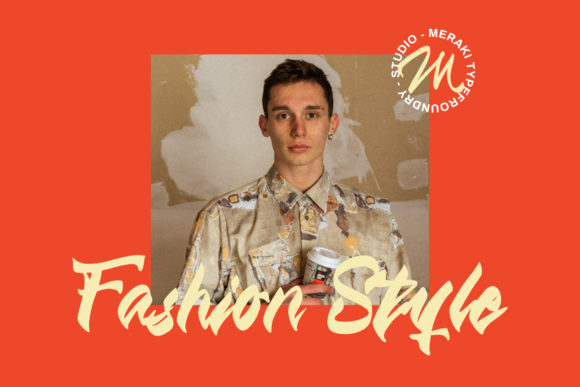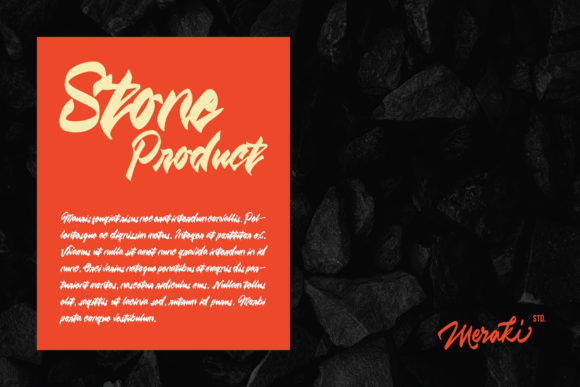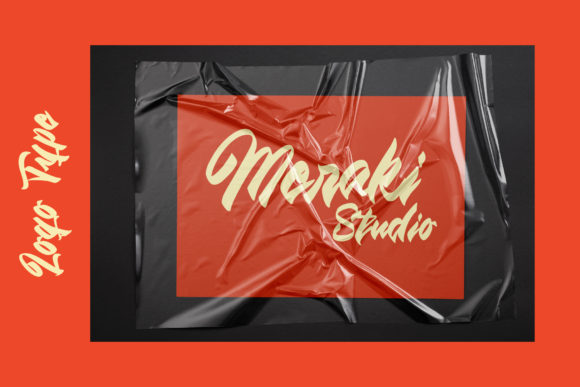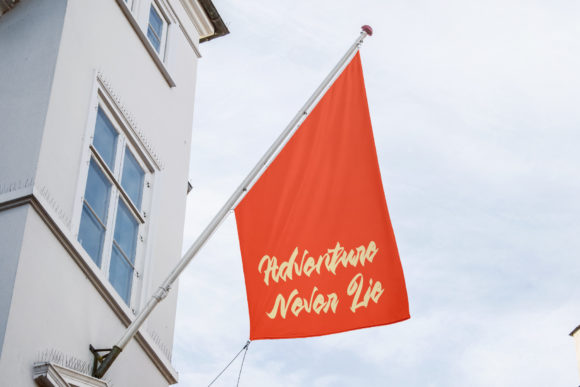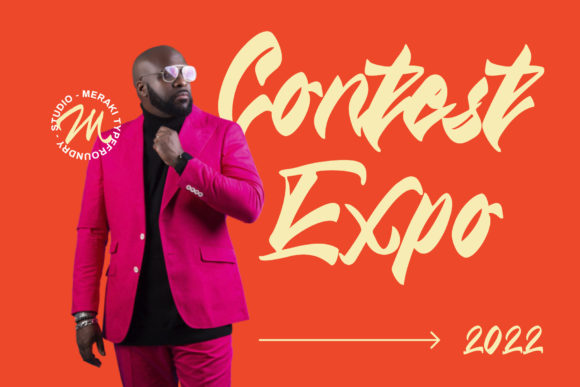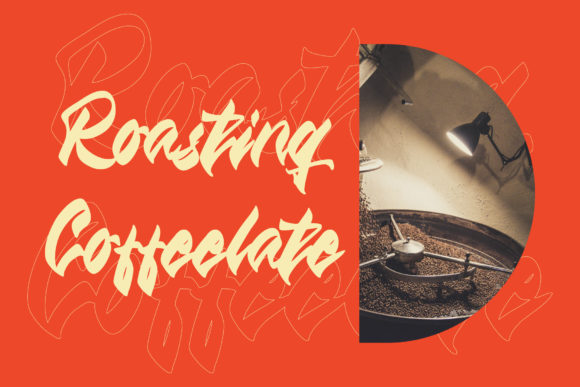
Discover the Charm of Callista Font: Elevate Your Designs with its Unique Handwritten Style
Are you a designer, crafter, or digital artist looking for a font that can add a personal touch to your creations? Look no further than the Callista Font! This unique handwritten font is perfect for a wide range of projects, from crafting and digital designing to presentations and greeting card making. With its incredibly versatile style, Callista Font is sure to fall in love with and become your go-to choice for creating spectacular designs.
What Makes Callista Font So Special?
Callista Font stands out from the crowd with its distinct handwritten style that exudes warmth, elegance, and sophistication. Its unique charm makes it an excellent choice for designers and crafters who want to add a personal touch to their work. Whether you’re creating a logo, brochure, or social media graphics, Callista Font is sure to make your designs stand out.
One of the best things about Callista Font is its versatility. It’s perfect for a wide range of design projects, including:
- Crafting: Use Callista Font to create beautiful handmade cards, scrapbook pages, and other craft projects that require a personal touch.
- Digital Designing: Add a touch of elegance to your digital designs, such as social media graphics, blog posts, and website headers.
- Presentations: Make your presentations more engaging and professional with Callista Font’s unique handwritten style.
- Greeting Card Making: Create stunning greeting cards for special occasions, such as birthdays, weddings, and holidays.
Benefits of Using Callista Font
Here are just a few benefits of using Callista Font in your design projects:
- Unique Style: Callista Font’s handwritten style is unlike any other font out there, making it perfect for designers and crafters who want to stand out from the crowd.
- Versatility: Callista Font can be used for a wide range of design projects, from digital designing to crafting and greeting card making.
- Elegance: Callista Font exudes elegance and sophistication, making it perfect for projects that require a touch of class.
- Easy to Read: Despite its unique style, Callista Font is easy to read, making it perfect for body text and headings.
How to Use Callista Font in Your Design Projects
Using Callista Font in your design projects is easy! Here are a few tips to get you started:
- Pair it with Other Fonts: Callista Font pairs well with other fonts, such as sans-serif fonts and script fonts. Experiment with different font combinations to find the perfect look for your project.
- Use it for Headings and Titles: Callista Font is perfect for headings and titles, where its unique style can really shine.
- Add a Personal Touch: Use Callista Font to add a personal touch to your designs, such as in illustrations, graphics, and icons.
In conclusion, Callista Font is a unique and versatile handwritten font that’s perfect for designers, crafters, and digital artists. With its incredibly versatile style, Callista Font is sure to elevate your designs and make them stand out from the crowd. Whether you’re creating digital designs, crafting handmade cards, or making presentations, Callista Font is the perfect choice. So why wait? Fall in love with Callista Font and start creating spectacular designs today!